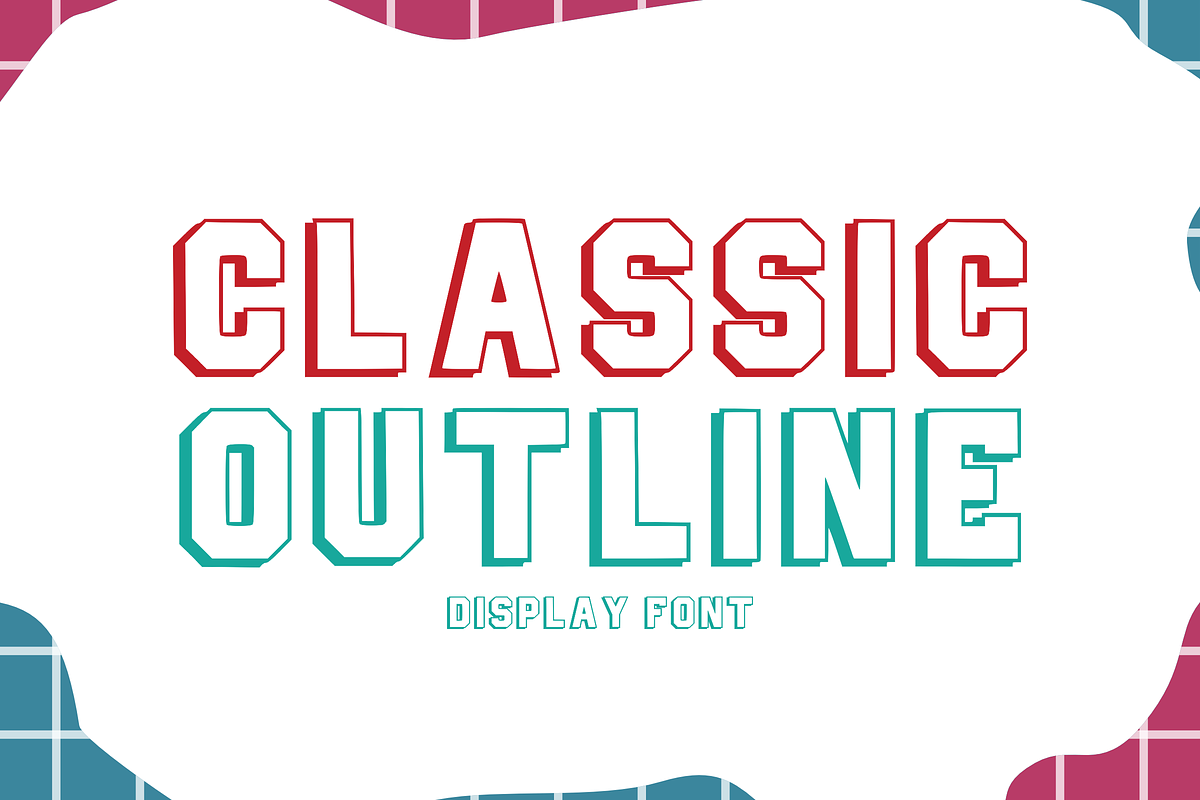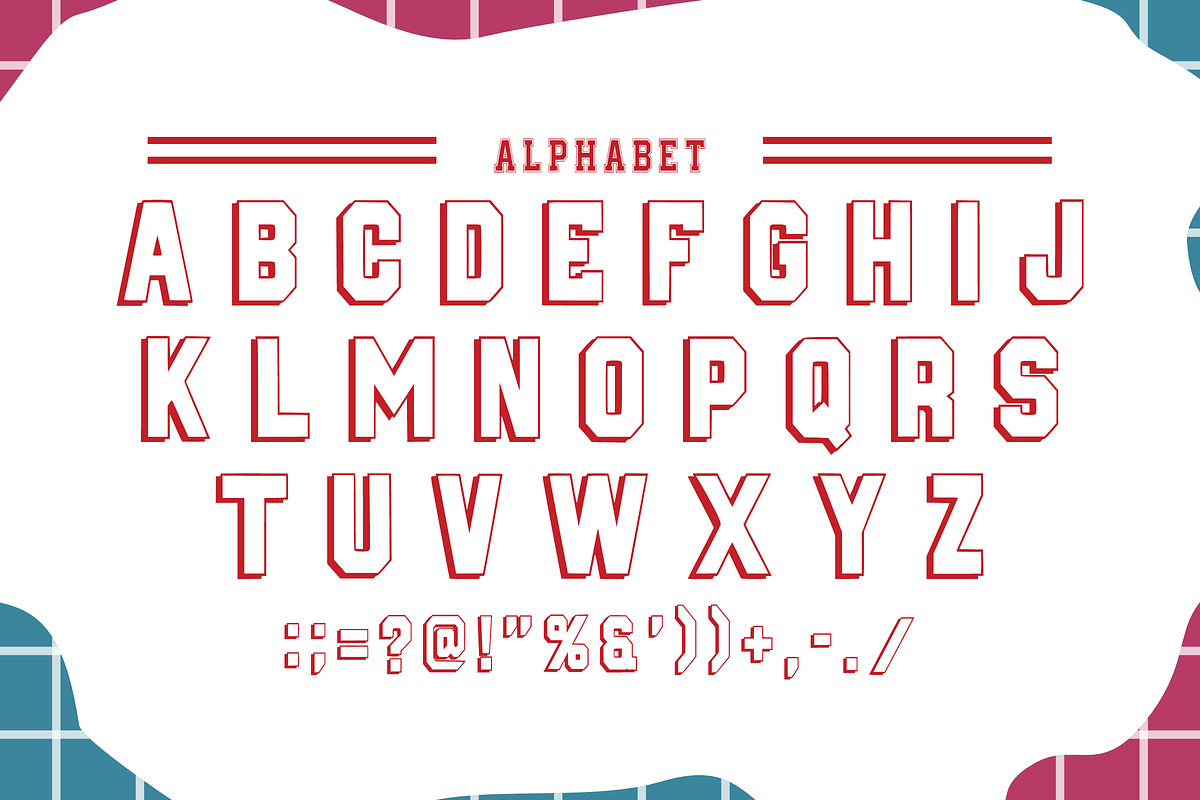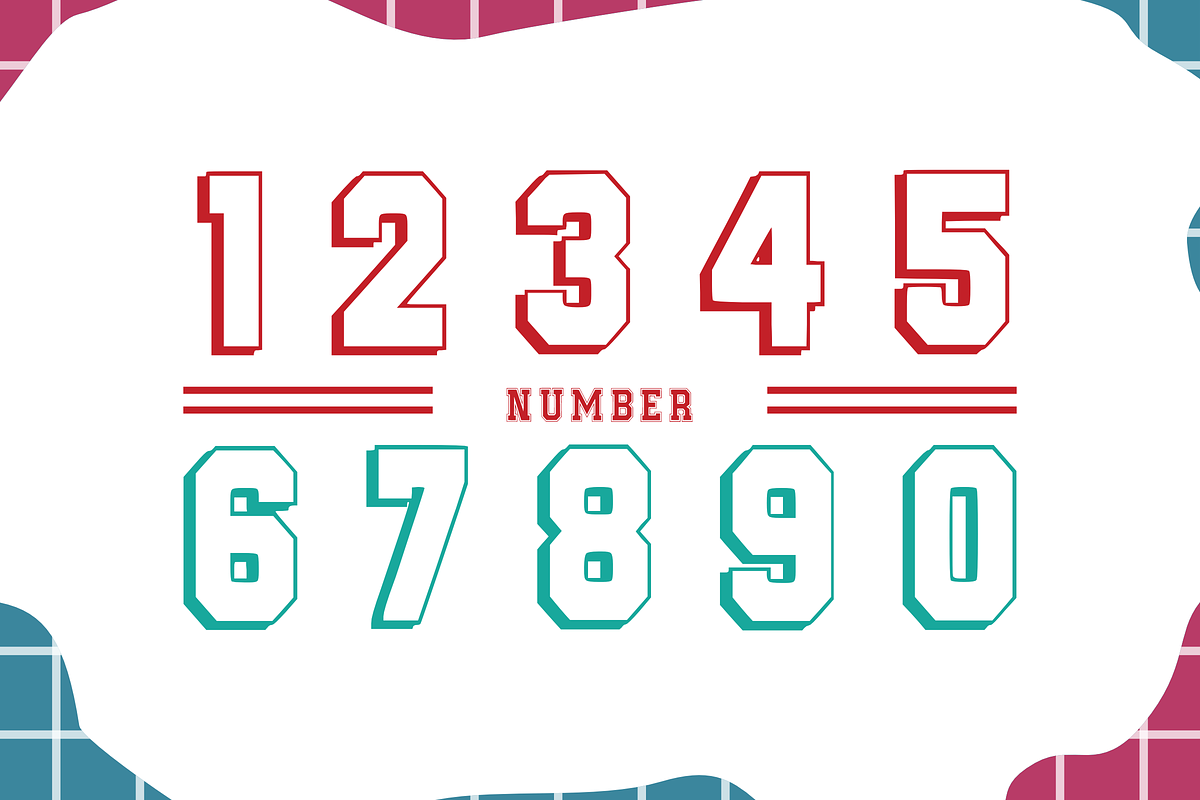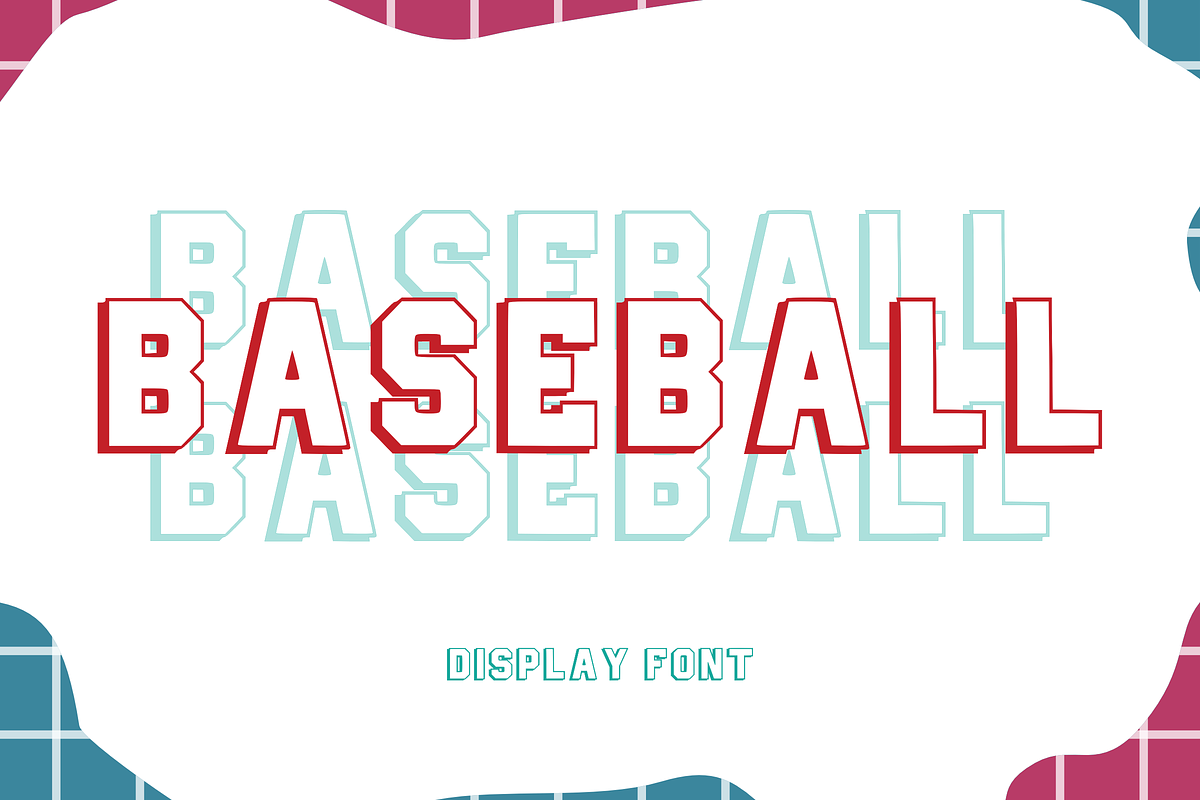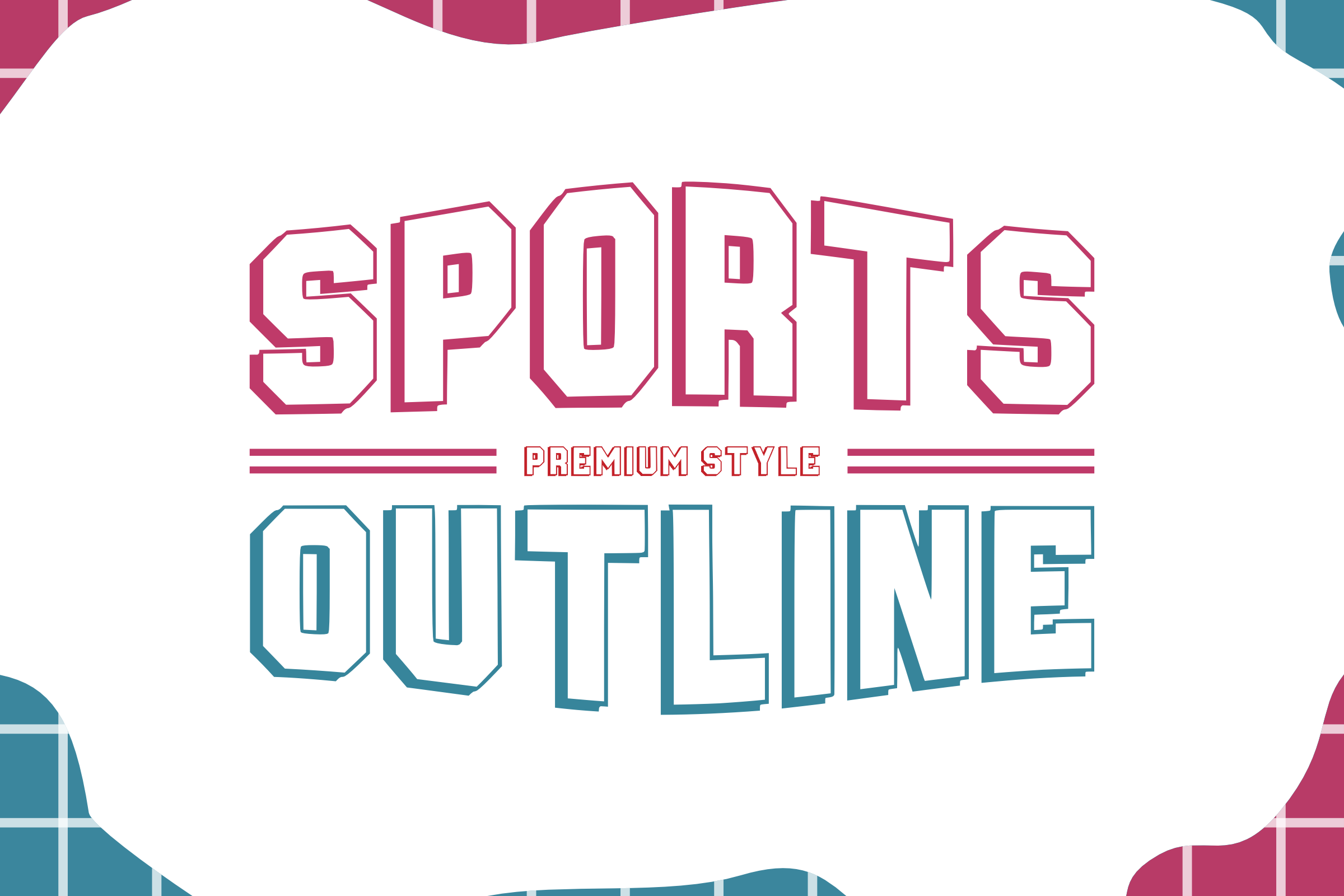
Sports Outline - Display Font
๐ Sports Outline โ Bold & Classic Athletic Display Font โก Gear up your designs with a winning look! ๐
Sports Outline is a powerful and energetic display font inspired by classic varsity and collegiate typography. Featuring sharp lines and a bold outline aesthetic, this font captures the spirit of teamwork and competition. Itโs designed to be high-impact and instantly recognizable, making it the ultimate choice for sports branding, team jerseys, and school spirit projects.
Whether you're designing for a local tournament, creating fan gear, or building a brand with a strong, athletic vibe, Sports Outline puts your message at the center of the stadium!
๐ Key Features: Classic Varsity Style: Sharp, geometric outline design with an athletic edge.
High Visibility: Bold and clean strokes ensure perfect legibility for print and digital.
๐จ Perfect For: ๐ Sports Branding & Team Logos
๐ Custom Jersey Numbers & Fan Apparel
๐ Collegiate & University Style Designs
๐ฑ Fitness & Gym Social Media Graphics
๐ Tournament Posters & Event Signage
๐๏ธ Cricut, Silhouette, & Vinyl Cutting Projects